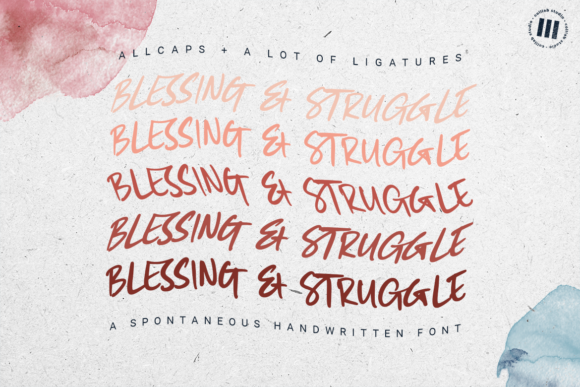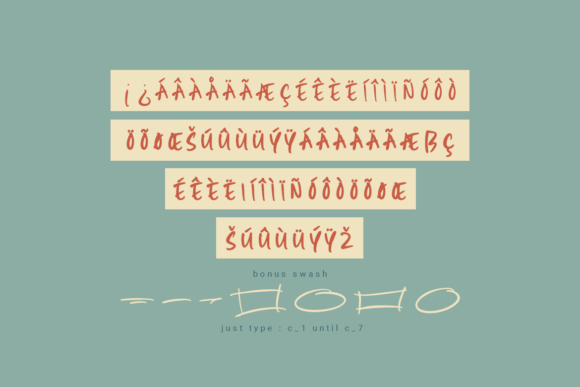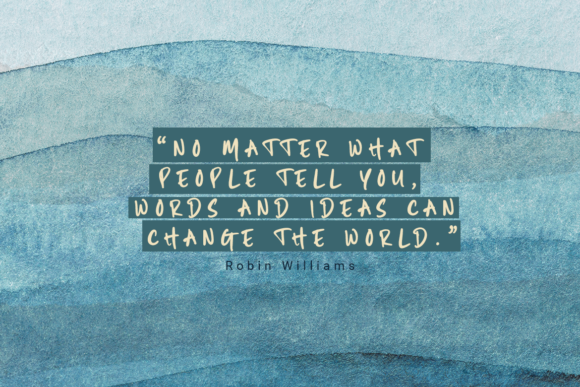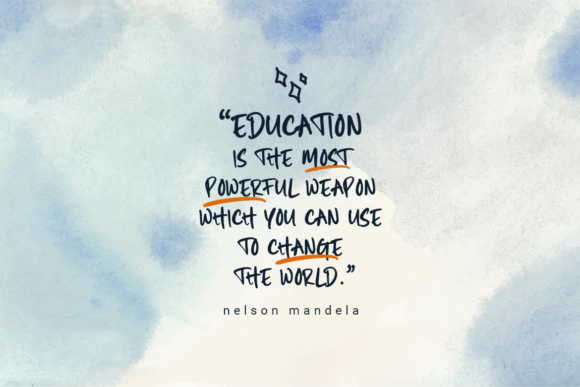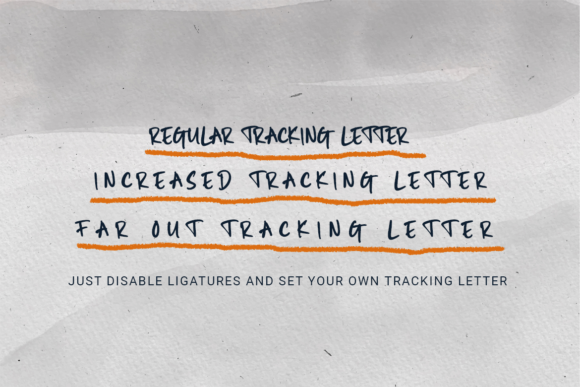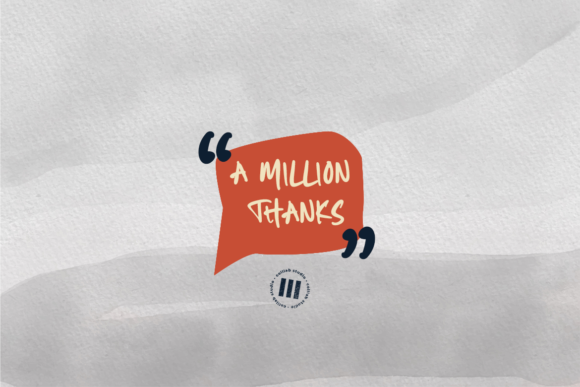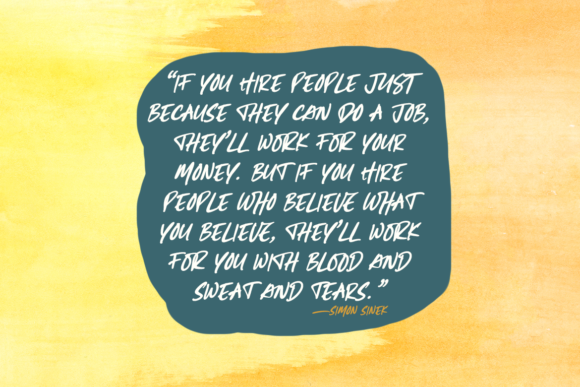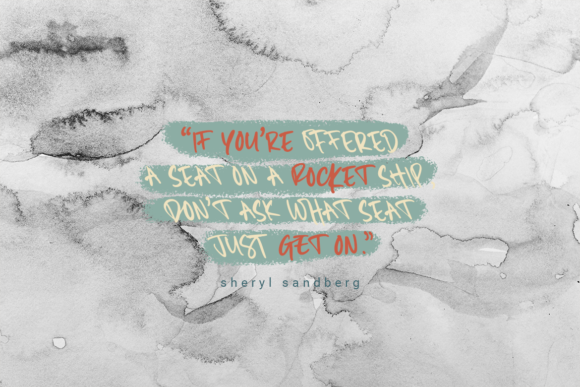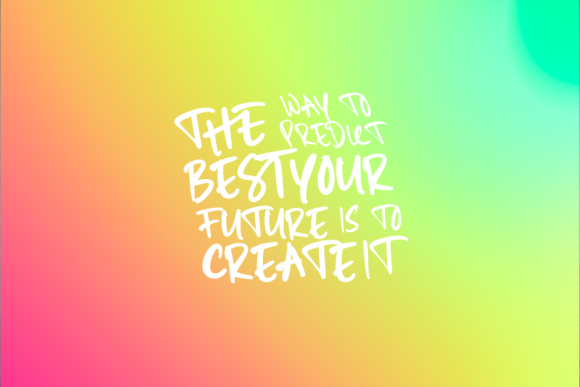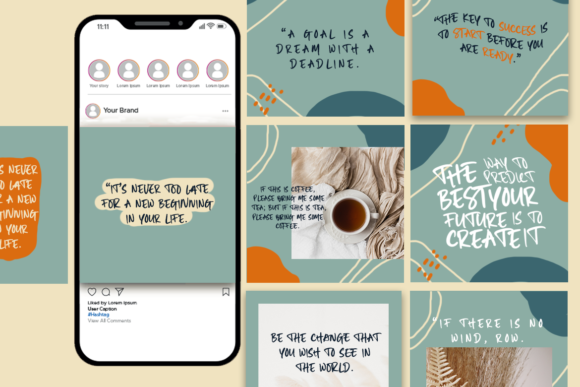
Blessing and Struggle Font
About Blessing and Struggle Font
Blessing And Struggle is a charming and free-spirited handwritten font that brings a sense of spontaneity and warmth to your designs. With its lively and playful style, this font is perfect for adding a touch of joy and positivity to your projects.
The beauty of Blessing And Struggle lies in its organic and natural strokes, capturing the essence of handwritten lettering. Its relaxed and carefree style gives each character a sense of authenticity and liveliness, making it a wonderful choice for designs that need a cheerful and vibrant look.
Whether you’re creating greeting cards, invitations, posters, social media graphics, or any other design project, Blessing And Struggle will infuse your designs with a sense of energy and life. Its handwritten appearance adds a personal touch and creates a connection with the viewer, evoking a feeling of warmth and familiarity.
The spontaneous and free-flowing nature of Blessing And Struggle allows it to adapt to a variety of design styles and themes. It can be used for playful and whimsical designs, as well as for projects that require a more casual and relaxed vibe. Its versatility makes it suitable for a wide range of applications, from branding and packaging to digital media and crafts.
With Blessing And Struggle, you have the freedom to experiment and explore different design possibilities. Its unique letterforms and occasional ligatures add visual interest and give your typography a dynamic and lively feel. You can also enhance your designs with additional glyphs and swashes, adding a decorative touch to your lettering compositions.
The spontaneous and relaxed nature of Blessing And Struggle encourages creativity and allows for expressive and personalized designs. Its imperfect and imperfectly perfect style celebrates the beauty of imperfection, making it a perfect choice for designs that embrace the authenticity and uniqueness of handmade creations.
So, embrace the spontaneity and vibrancy of Blessing And Struggle and let it brighten up your designs. Whether you’re working on personal projects, branding, or any other creative endeavor, this font will add a touch of joy and liveliness to your designs. Let it inspire and uplift your audience with its sweet and full of life style.